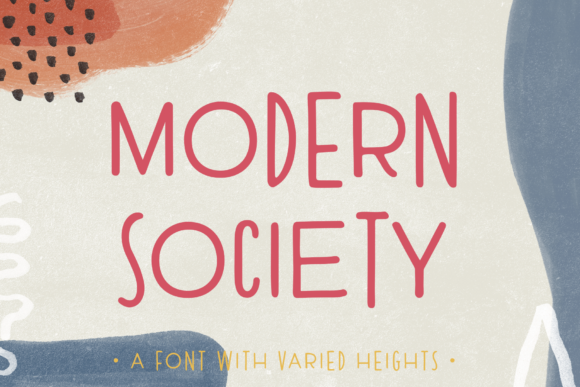
Dive into the enchanting realm of Modern Society, a captivating sans serif font that embodies modern aesthetics with an alluring touch of handwritten charm. Each stroke and curve is meticulously designed to evoke a sense of sophistication, making it the perfect choice for designers seeking to create a lasting impression.
With its captivating caps and intriguing geometric letterforms, Modern Society lends a distinctive allure to your designs. Its versatility knows no bounds, effortlessly adapting to a myriad of creative projects, from elegant logos and branding to captivating headlines and eye-catching social media posts.
Modern Society is more than just a font; it's a gateway to boundless creativity. Unleash its potential to transform your designs from ordinary to extraordinary, adding a touch of timeless elegance to every project you undertake. Embrace the allure of Modern Society and elevate your creations to new heights of beauty and sophistication.
Created by the talented Ayca Atalay, Modern Society carries with it a unique story, enriching its aesthetic appeal with a touch of human artistry. Its intricate details and flowing lines reflect the passion and dedication of its creator, ensuring that your designs will stand out with a truly personal touch.